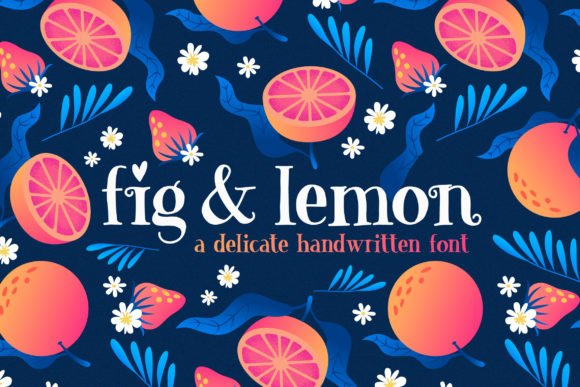
The Perfect Pair: Elevate Your Designs with Fig & Lemon Duo Font
There’s something magical about stumbling upon the perfect font for a project – the words flow effortlessly, the layout comes together seamlessly, and suddenly, your vision takes shape. It’s that moment when all the hard work and late nights become worth it. For designers, finding the right font can be a game-changer, and that’s exactly what the Fig & Lemon Duo Font aims to provide.
This delicate serif font is designed to add a touch of elegance to any project, without overpowering it. Not too thin, not too thick, the Fig & Lemon Duo Font strikes a perfect balance, making it an ideal choice for designers who want to create visually appealing and authentic content. Whether you’re working on a branding project, a brochure, or a website, this font is sure to elevate your designs and leave a lasting impression.
Fig & Lemon Duo Font Key Features
• Font Family: A unique duo font featuring a combination of a serif and sans-serif font, perfect for creating contrast and visual interest in designs.
• Unique Characteristics: The Fig & Lemon Duo Font features a distinctive pairing of a serif and sans-serif font, with carefully crafted letterforms that work harmoniously together.
Fig & Lemon Duo Font Review
I recently had the chance to dive into the Fig & Lemon Duo Font, and I must say, it’s a unique and refreshing take on a classic duo font style. Here are some of its strengths:
• ✨ Elegant and modern aesthetic: The combination of fig and lemon-inspired elements creates a visually appealing and stylish design.
• ✨ Highly versatile: This font can be used for a wide range of projects, from packaging and branding to digital design and print materials.
• ✨ Strong legibility: The clear and well-balanced design makes it easy to read, even at small sizes.
However, I did notice a few limitations:
• ⚠️ Limited font sizes: While the font looks great at larger sizes, it can get a bit fuzzy when scaled down to very small sizes.
• ⚠️ Limited language support: The font seems to be optimized for English and may not support certain languages or characters.
Overall, I think the Fig & Lemon Duo Font is a great addition to any designer’s toolkit. While it may have some limitations, its unique style and versatility make it a great choice for a wide range of projects. I’d definitely consider using it for future designs.
For optimal use, pair the Fig & Lemon Duo font with a bold font for contrast.
– Food and beverage labels
– Stationery and invitations
– Web design and e-commerce
Alternatives to Fig & Lemon Duo Font
Playfair Display is a luxurious and elegant script font, ideal for use in high-end branding, invitations, and luxury product packaging. It features intricate flourishes and connections between letters, creating a beautiful and sophisticated look.
Compared to Fig & Lemon Duo Font, Playfair Display has a more formal and traditional feel, whereas Fig & Lemon Duo Font has a more modern and minimalist aesthetic. Playfair Display is better suited for formal events and high-end products, while Fig & Lemon Duo Font is more versatile and suitable for a wider range of applications.